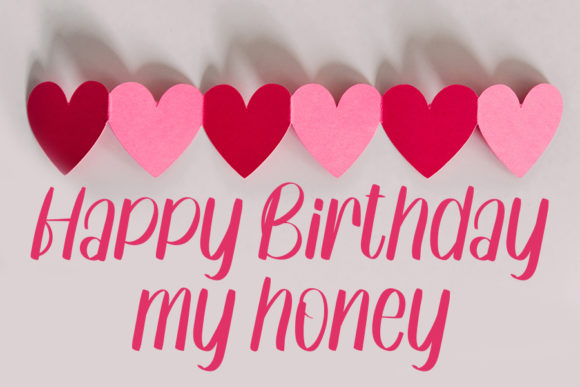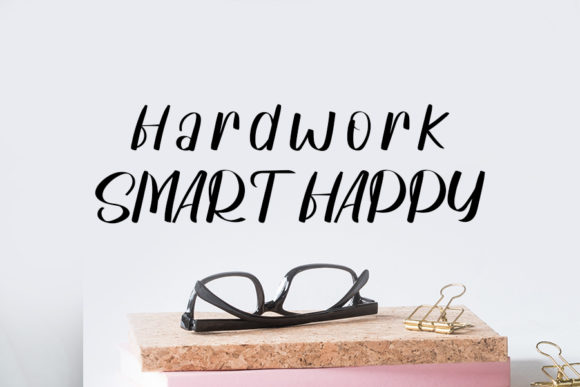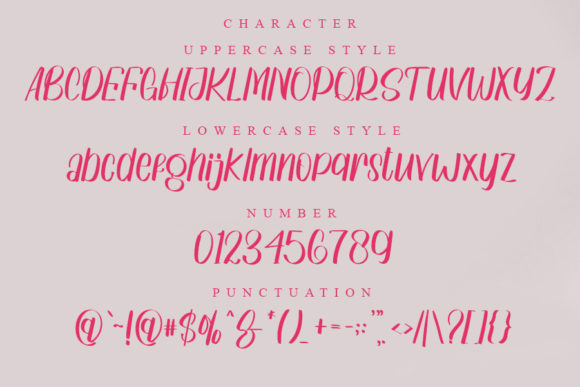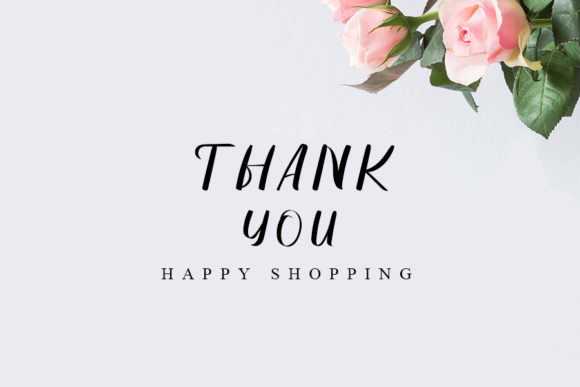
The Perfect Stroke: Unveiling the Butterflies Font
Have you ever stared at a blank canvas, struggling to find the perfect words to bring your design to life? The blank page can be intimidating, but it’s in these moments of creative uncertainty that the right font can make all the difference. For designers, the quest for the ideal typography is a never-ending journey, and it’s here that the Butterflies Font comes into play.
This trendy handwritten font is more than just a pretty face – it’s a powerful tool that can elevate your designs from bland to grand. With its bold and assertive feel, Butterflies Font is the perfect companion for designers looking to create a wide range of visual masterpieces, from formal events to casual gatherings.
Key Features of Butterflies Font
- Unique Characteristics: The Butterflies Font features a unique, whimsical design with intricate details and subtle texture, making it ideal for creative and artistic projects.
- Style Variations: The font comes in multiple styles, including Regular, Bold, Italic, and Bold Italic, allowing designers to experiment with different looks and feels.
Butterflies Font Review
Overall, I think the Butterflies font is a lovely, whimsical addition to any design project. ✨ It’s perfect for creating a sense of wonder and magic, and it’s great for adding some visual interest to a page or document. The delicate, hand-drawn feel of the font makes it feel very personal and special.
The font is also incredibly versatile, and can be used for a wide range of applications, from children’s books and magazines to wedding invitations and greeting cards. ✨ It’s a great choice for anyone looking to add a touch of elegance and sophistication to their design.
- Delicate, hand-drawn feel
- Perfect for creating a sense of wonder and magic
- Very versatile
- Great for adding visual interest to a page or document
- May be difficult to read in smaller font sizes
- Not ideal for body text, as it can be overwhelming
- May not be suitable for formal or professional applications
Overall, I think the Butterflies font is a great choice for anyone looking to add a touch of whimsy and personality to their design. While it may have some limitations, it’s a beautiful and versatile font that’s perfect for a wide range of applications.
The Butterflies Font is perfect for:
- Children’s book illustrations and design.
Tips for Getting the Most Out of Butterflies Font
For optimal results, use the Butterflies Font in conjunction with pastel colors and whimsical illustrations. Experiment with different font sizes and styles to create a unique and eye-catching design.